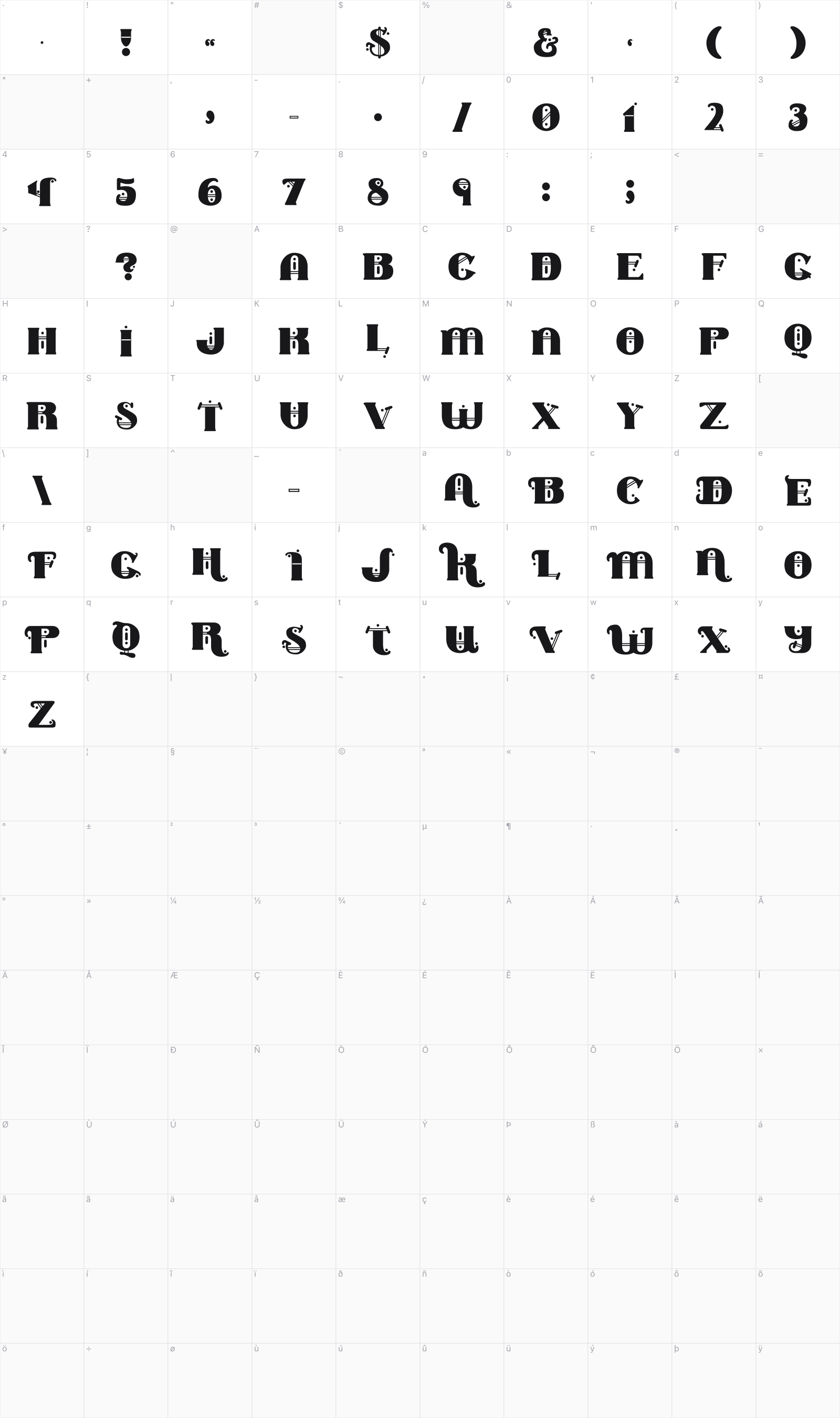
Mary Contrary
Mary Contrary is a bold, quirky novelty face by Blair Strain with decorative letterforms that feel deliberately offbeat and a little mischievous. The ornamental details add personality without overwhelming the shapes, keeping things playful rather than precious. Best at large sizes for headlines, posters, or packaging where you want something that catches the eye and refuses to behave.